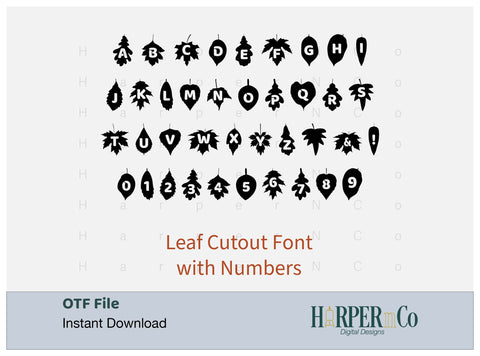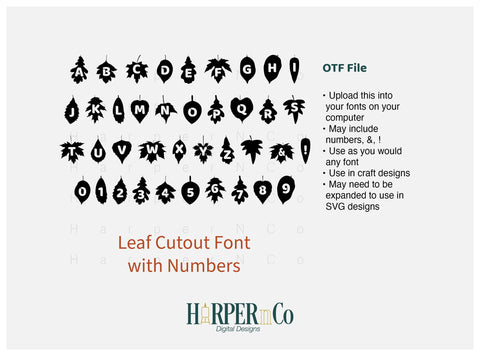
Leaf Cutout Font, Playful Craft Font, Leaf Shaped Font
“Leaf Cutout” is a fun and playful dingbat font featuring various leaf shapes with letters and numbers in the negative space. Each character in the font is a different leaf design, perfect for adding a fun touch to your Halloween projects or decorations.